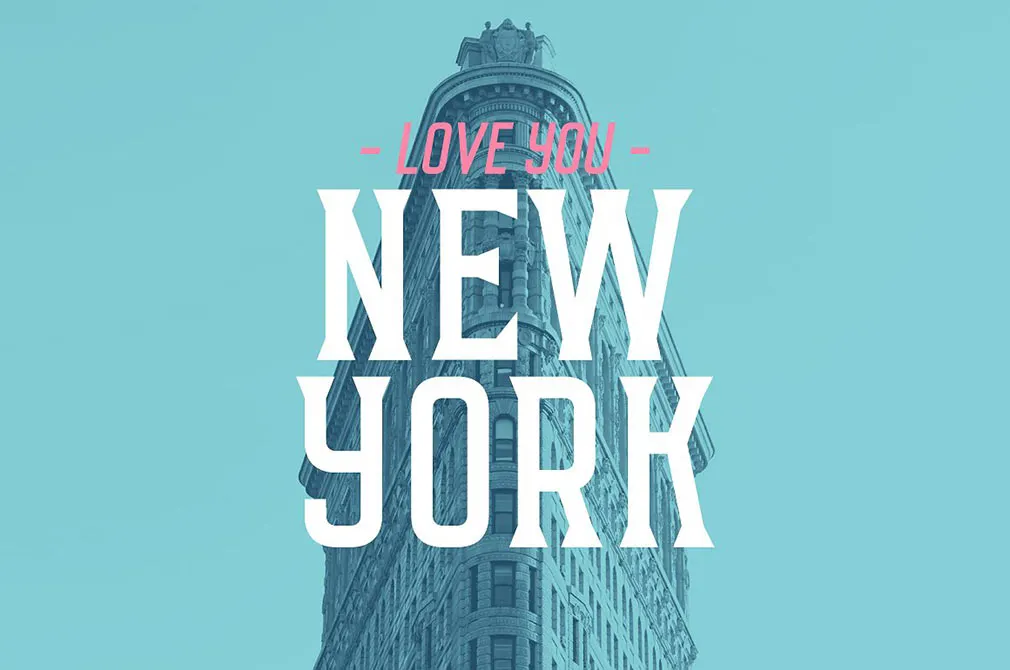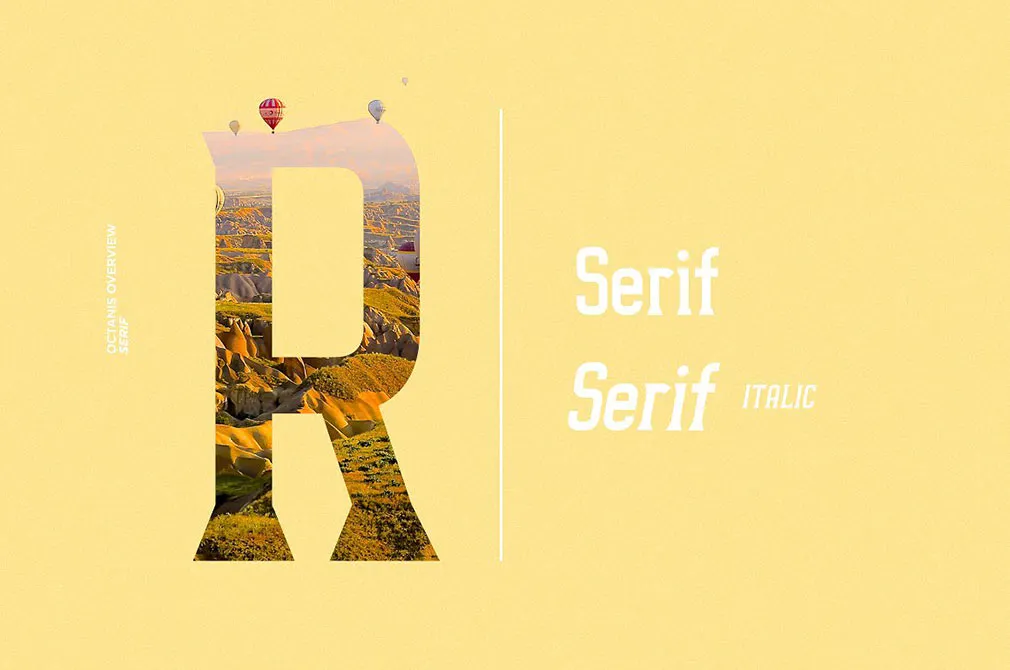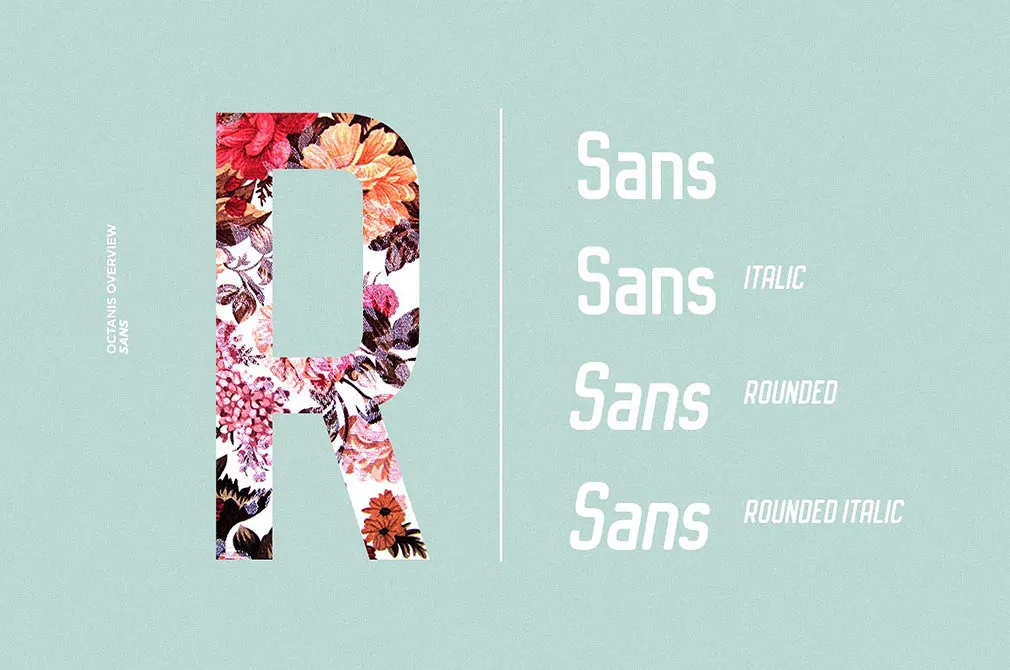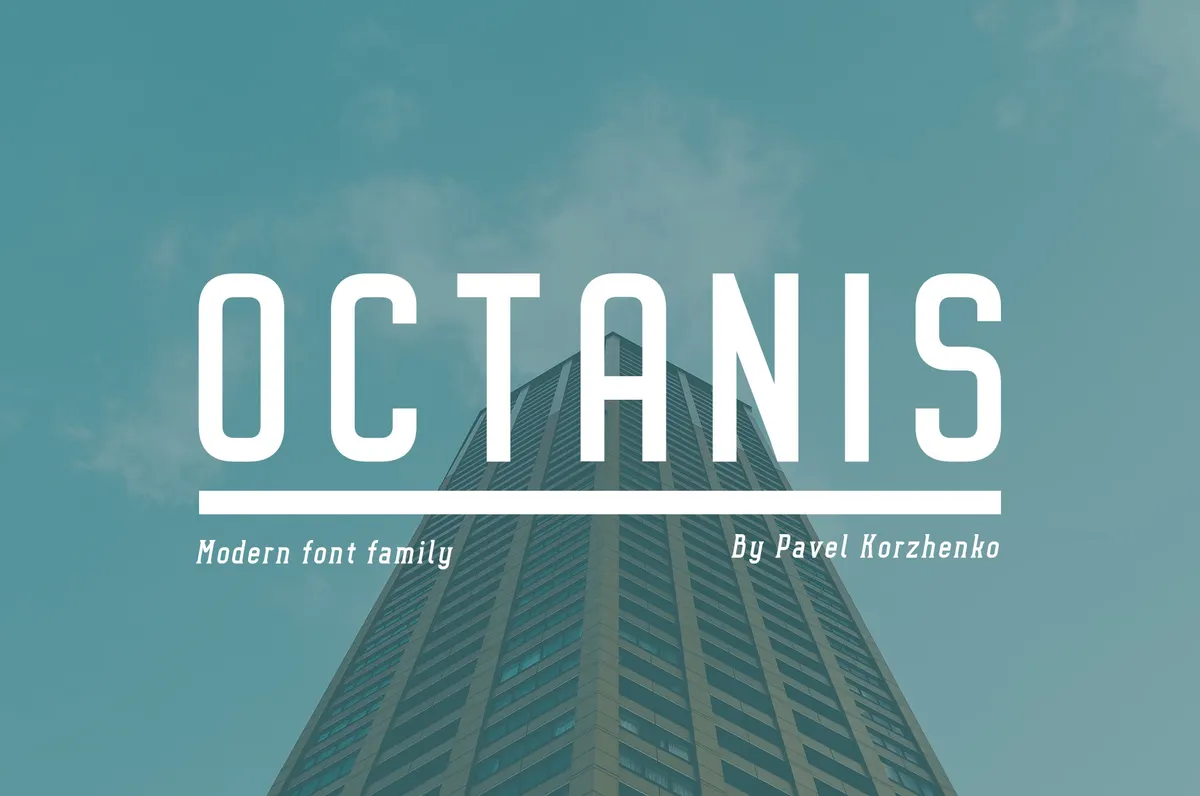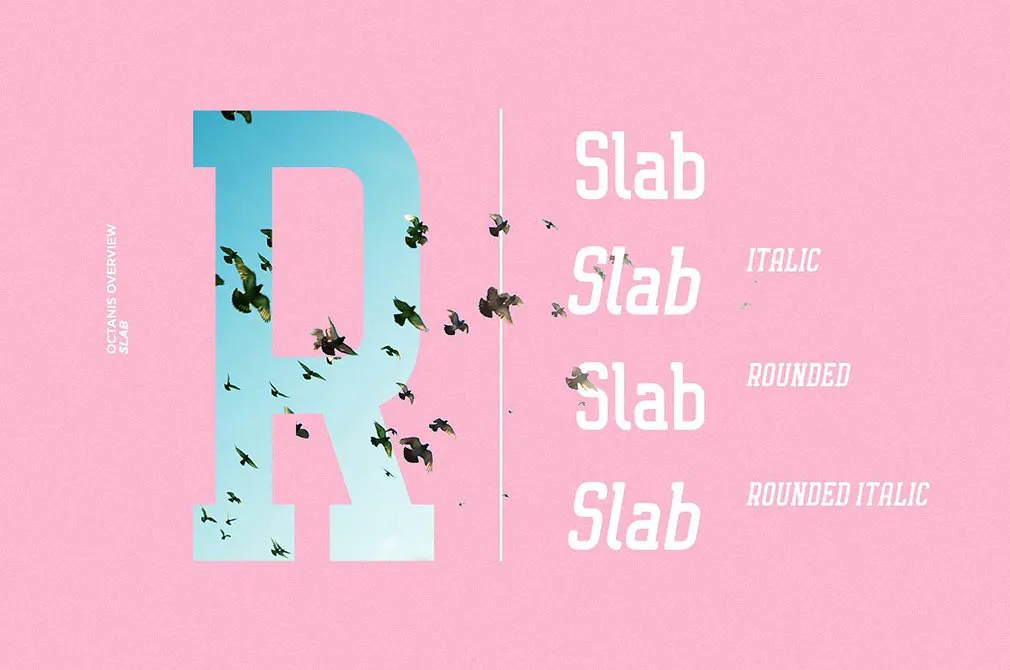
Octanis Font Family
Our today's font family is something bold and noteworthy. Sans, slab and script typefaces are united under the name Octanis and stand for a unique merge of a neatly arranged characters.
With this typeface, you have 8 beautiful styles to play around with! Just try strong Octanis Sans or its opposite soft Octanis Sans Rounded, then maybe Vintage Octanis Slab and Octanis Serif for your design projects. All in all, we're sure that Octanis is a perfect typeface for headlines, logos, and typographic compositions — try it out and you'll see!